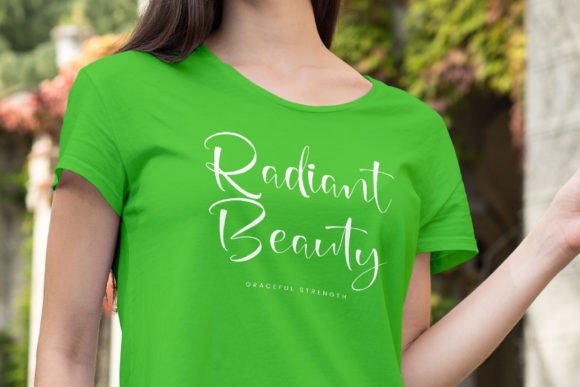
Sweetlime Delight Font: Elevate Your Designs with Luxury Script Style
In the world of typography, fonts play a crucial role in conveying the tone and personality of a design. For those seeking a touch of luxury and elegance, the Sweetlime Delight Font is an excellent choice. This beautiful handwritten font, crafted by Letterena, is a versatile and high-end script font suitable for a wide range of projects. In this article, we’ll explore the features and applications of Sweetlime Delight, and why it’s an ideal choice for designers and businesses looking to add a touch of sophistication to their work.
Key Features of Sweetlime Delight Font
- Luxury Script Style: Sweetlime Delight boasts a luxurious script style, perfect for creating high-end designs that exude elegance and refinement.
- Handwritten: The font’s handwritten nature adds a personal touch, making it ideal for designs that require a more human and approachable feel.
- Versatile: Sweetlime Delight is suitable for a wide range of projects, from logos and branding to packaging, posters, and more.
- Beautifully Crafted: Created by Letterena, Sweetlime Delight features intricate details and a high level of craftsmanship, ensuring a premium look and feel.
Ideal Projects for Sweetlime Delight Font
Sweetlime Delight’s versatility makes it an excellent choice for various design projects, including:
- Logos and Branding: Establish your brand’s luxury identity with Sweetlime Delight’s elegant script style.
- Homeware Designs: Add a touch of sophistication to home decor designs, such as wall art, cushions, and other decorative items.
- Product Packaging: Elevate your product’s packaging with a luxurious font that conveys high-end quality.
- Mugs and Apparel: Create stylish and eye-catching designs for mugs, t-shirts, and other merchandise.
- Posters and Quotes: Use Sweetlime Delight to create visually stunning posters and quotes that make a lasting impression.
- Shopping Bags and Labels: Add a touch of luxury to shopping bags, labels, and other promotional materials.
- Book Covers and Invitations: Create beautiful book covers, invitations, and greeting cards that exude elegance and refinement.
- Photography and Watermarks: Use Sweetlime Delight as a watermark or to add a touch of sophistication to your photography.
Design Tips for Using Sweetlime Delight Font
To get the most out of Sweetlime Delight, consider the following design tips:
- Pair with Simple Backgrounds: Allow Sweetlime Delight to shine by pairing it with simple, clean backgrounds that don’t compete with the font’s elegance.
- Experiment with Colors: Try pairing Sweetlime Delight with a range of colors to find the perfect combination that suits your design.
- Use for Headlines and Titles: Sweetlime Delight’s luxurious script style makes it perfect for headlines and titles, adding a touch of sophistication to your design.
- Mix with Other Fonts: Experiment with pairing Sweetlime Delight with other fonts to create a unique and visually appealing design.
Benefits of Using Sweetlime Delight Font
By choosing Sweetlime Delight, designers and businesses can enjoy a range of benefits, including:
- Unique and Exclusive: Sweetlime Delight’s luxurious script style sets it apart from other fonts, ensuring your design stands out from the crowd.
- High-End Quality: The font’s beautifully crafted design and attention to detail ensure a high-end quality that’s perfect for luxury brands and designs.
- Versatility: Sweetlime Delight’s versatility makes it suitable for a wide range of projects, saving designers and businesses time and effort.
- Ease of Use: The font is easy to use and integrate into designs, making it accessible to designers of all levels.
In conclusion, Sweetlime Delight Font is an exceptional choice for designers and businesses seeking to add a touch of luxury and elegance to their work. With its beautifully crafted design, versatility, and high-end quality, Sweetlime Delight is perfect for a wide range of projects. By incorporating Sweetlime Delight into your design arsenal, you’ll be able to create stunning and sophisticated designs that leave a lasting impression.